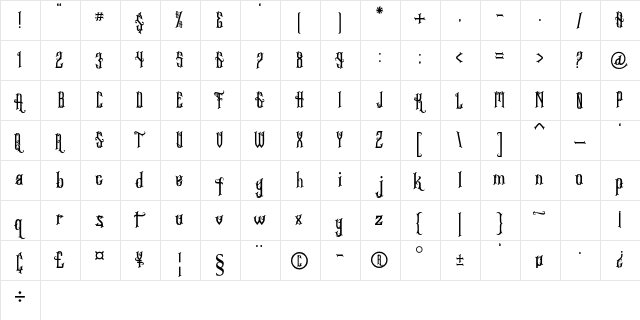
Gethucks Regular
Design Context for Gethucks Typeface
Gethucks is a composed and adaptable typeface that performs quietly and consistently across a wide range of design contexts.